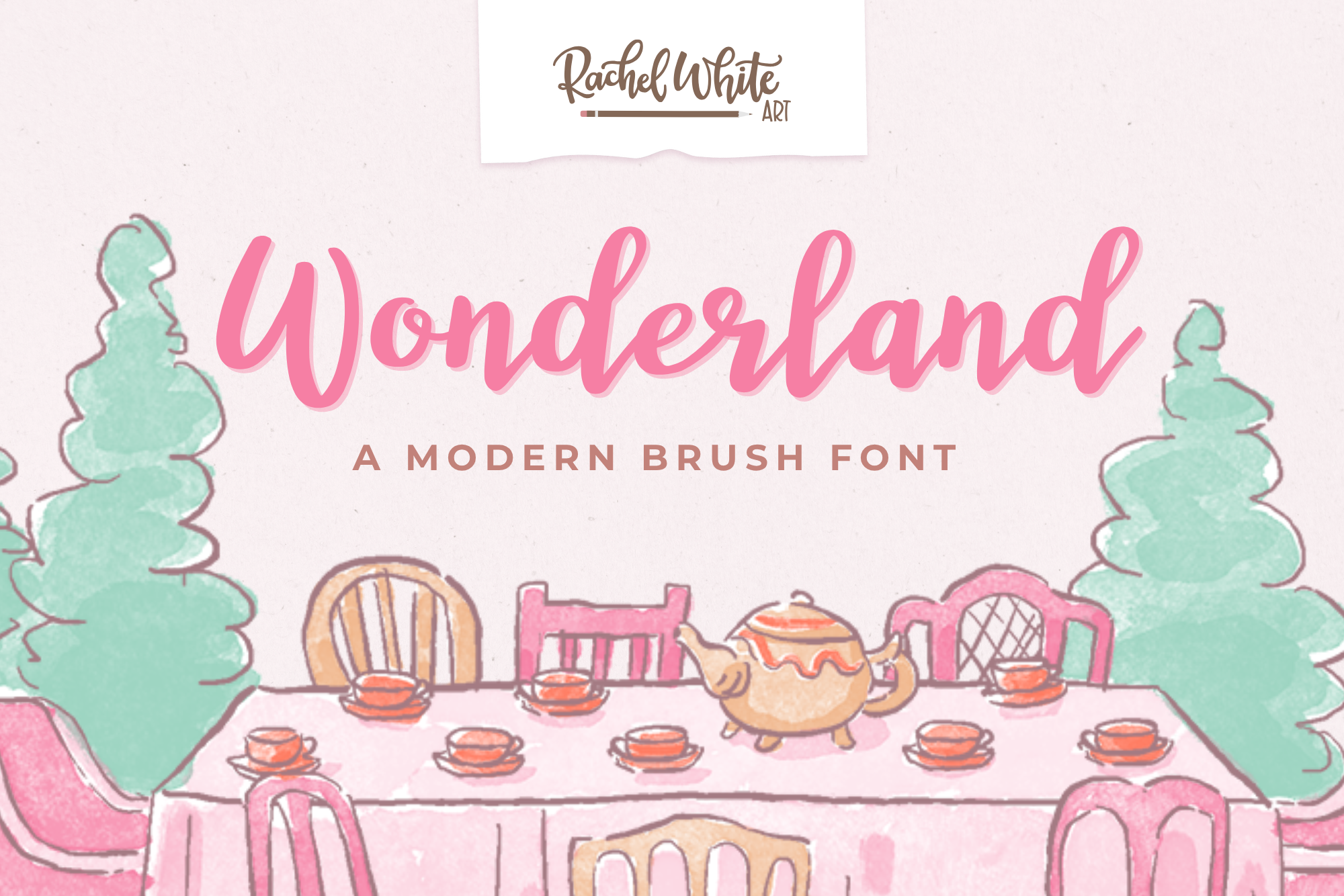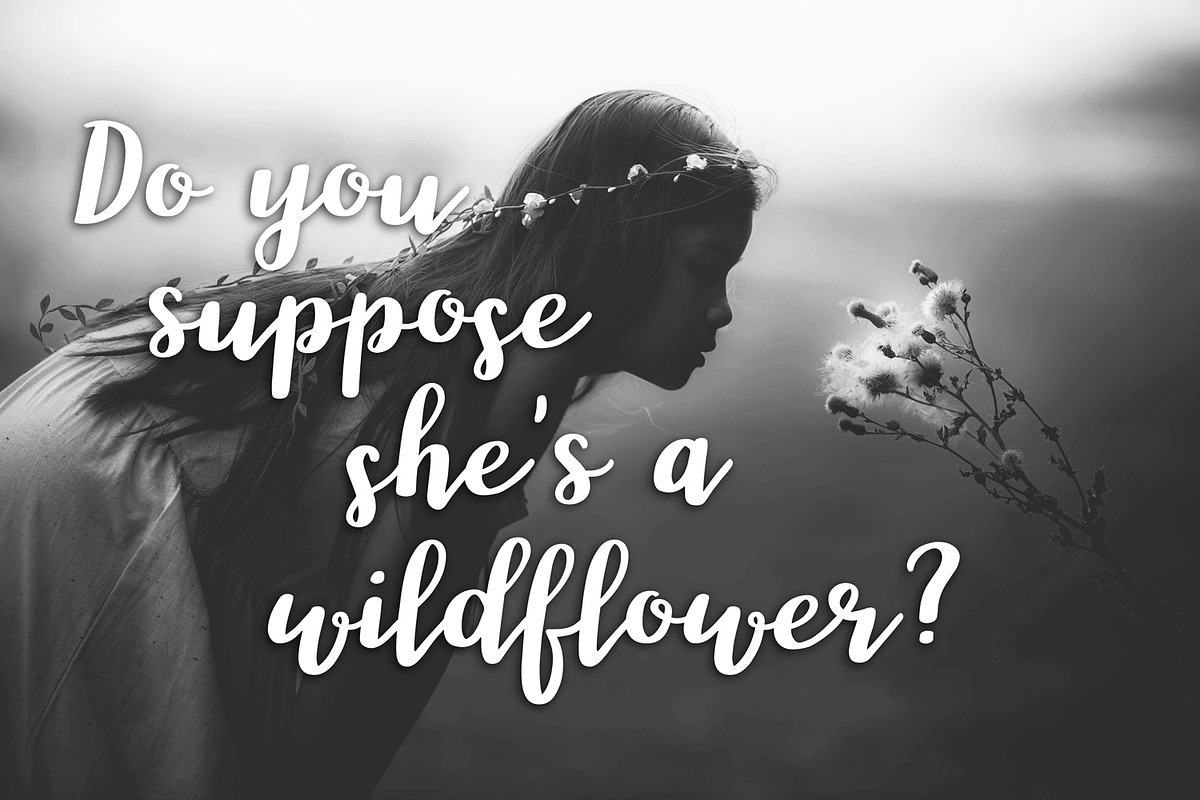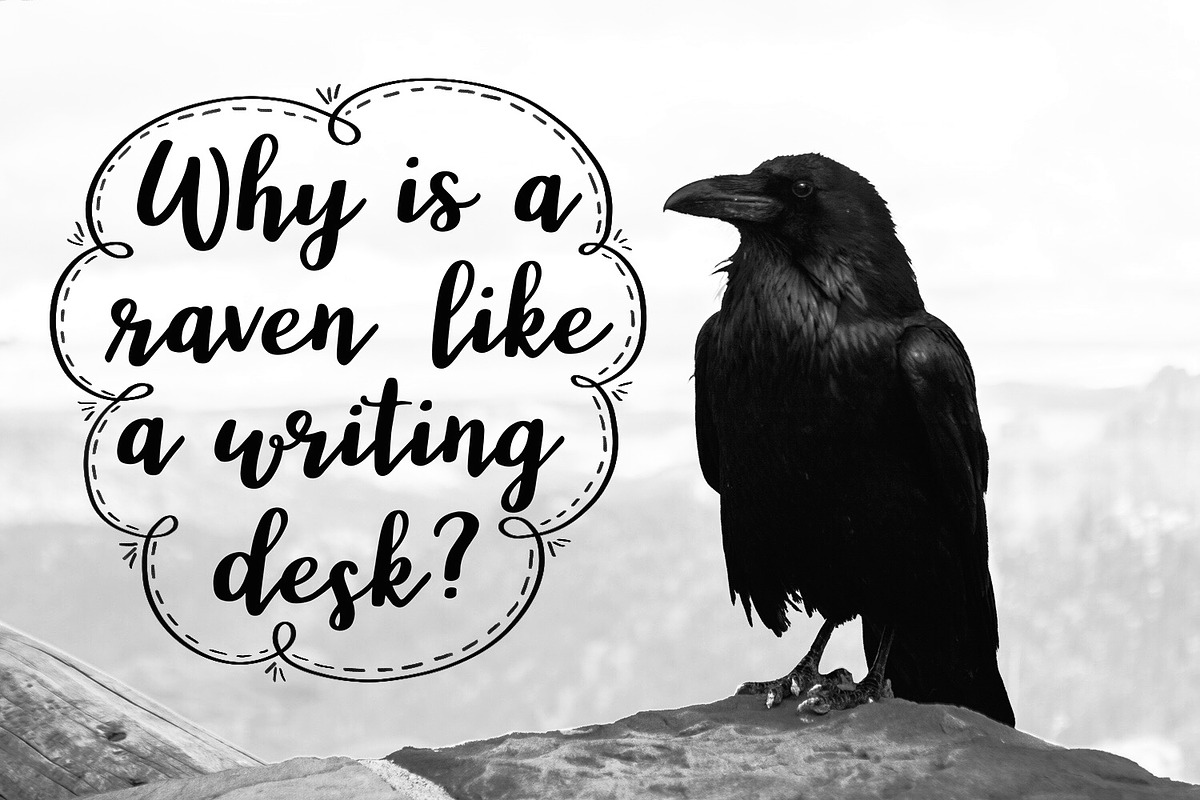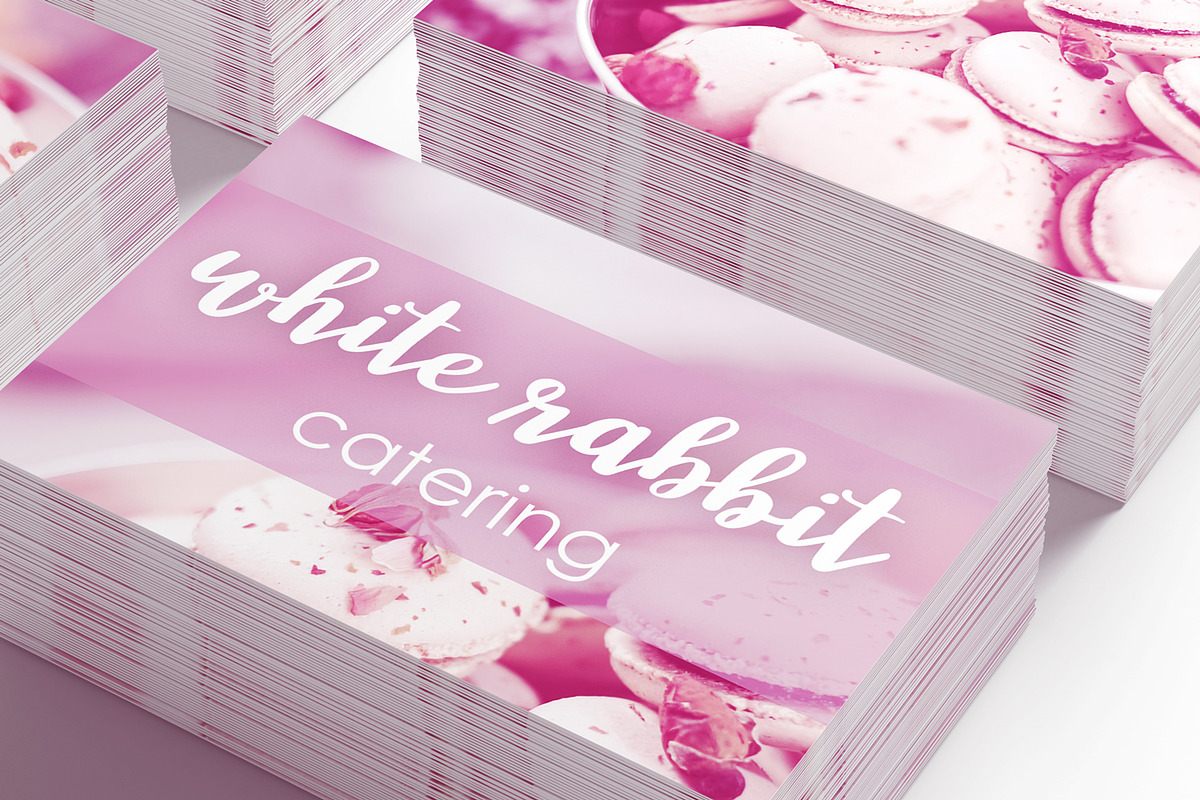
Wonderland, modern calligraphy font
Wonderland is a modern calligraphy font that combines elegance with a contemporary, flowing style. Perfect for wedding invitations, branding, logos, social media, and greeting cards, it adds a touch of sophistication and charm to any project.
With smooth, graceful strokes and beautiful ligatures, Wonderland offers a polished look that feels both fresh and timeless—ideal for creatives seeking a stylish handwritten font.